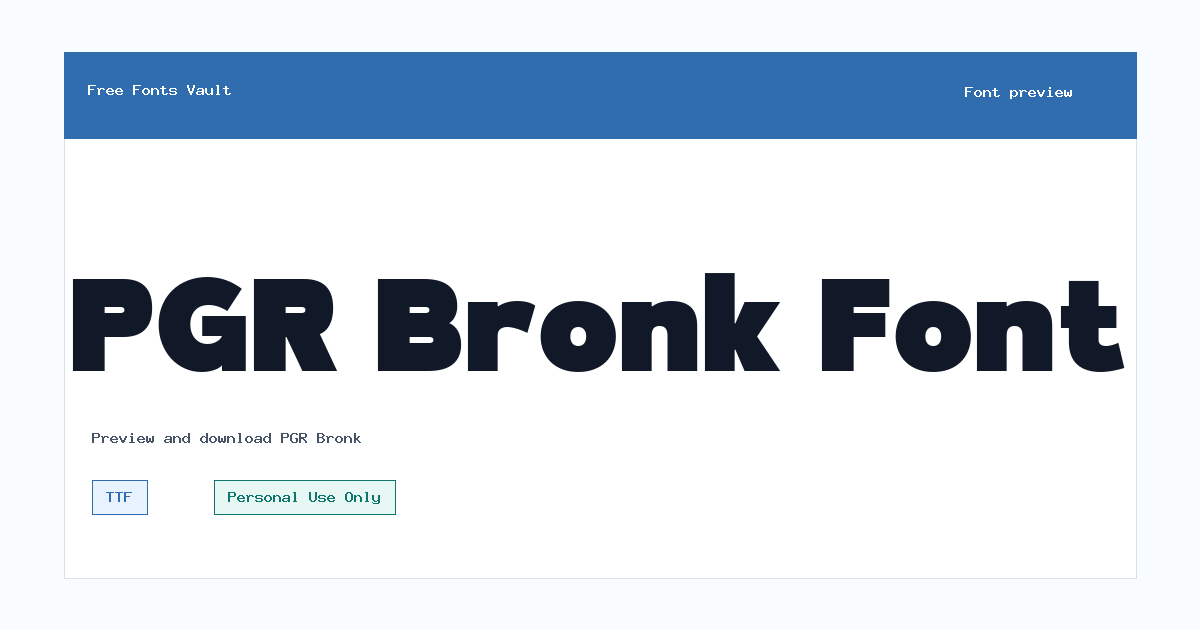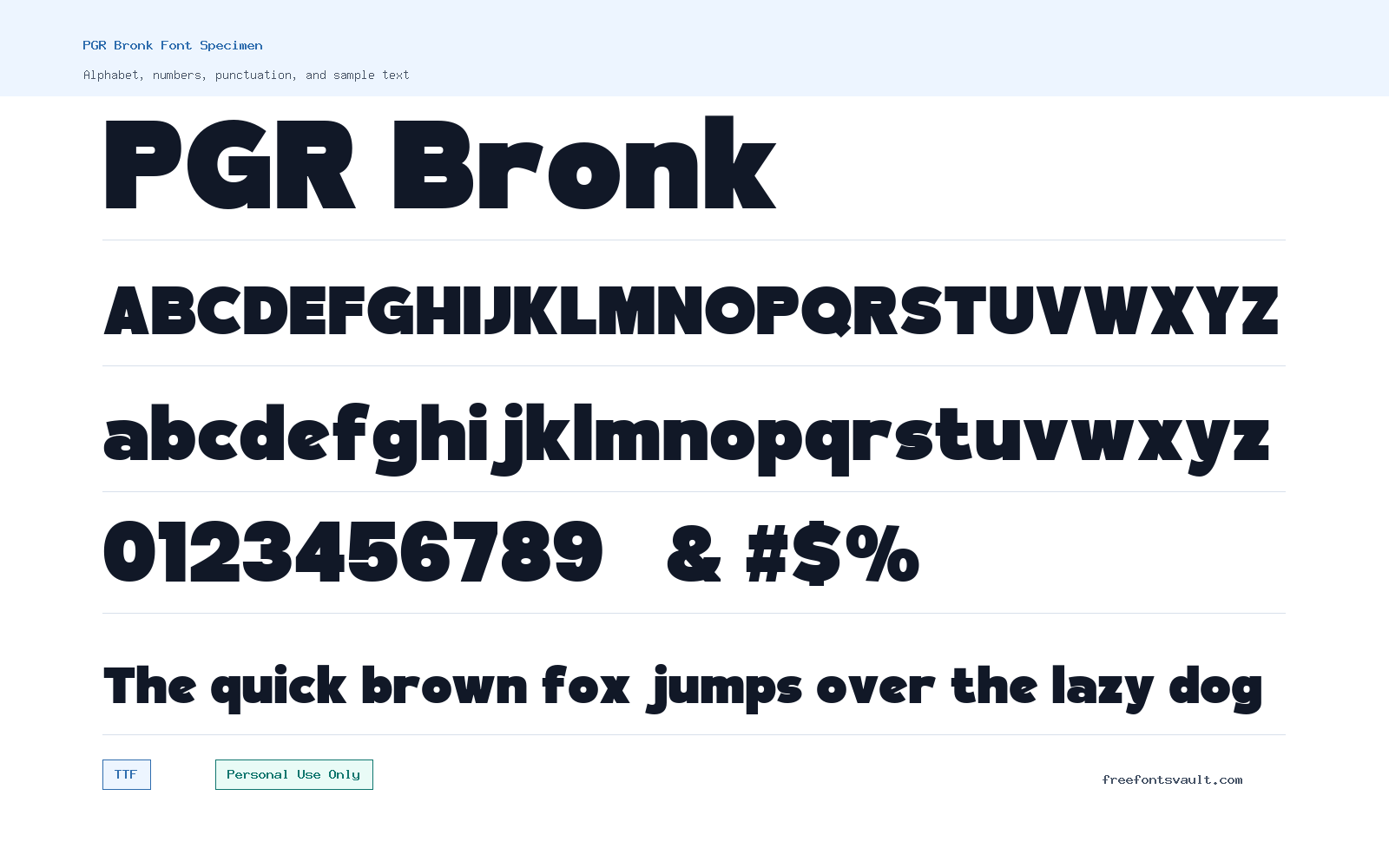
PGR Bronk
PGR Bronk font.
PGR Bronk is a sans serif font from Pikgura with regular-weight files in both TTF and OTF formats. It is best approached as a display-friendly typeface for personal projects where you want clean letterforms and a straightforward preview before download.
About PGR Bronk
PGR Bronk keeps things simple: one regular style, normal upright lettering, and a sans serif structure. That makes it easy to test quickly in the font previewer without sorting through multiple weights or decorative alternates. Because only a regular 400 style is listed, it is most useful when the design needs one clear voice rather than a large typography system.
Use the preview tool with the exact words you plan to design around. Try short titles, names, labels, poster text, thumbnails, social graphics, and simple branding mockups for personal use. Also test lowercase, uppercase, numbers, and punctuation before relying on it in a finished layout. If you need body text, check longer sentences at smaller sizes first; many single-style sans serif fonts work better for headings or short copy than for dense paragraphs.
- Sans serif regular style with normal upright posture
- Single 400-weight variant for simple testing and lightweight use
- Suitable for short text previews, headings, labels, and personal design drafts
- Personal posters, quote graphics, and social media artwork
- Short headings, name treatments, labels, and simple layout experiments
- Testing clean sans serif typography in mockups before choosing a full font family
- Projects where one regular style is enough
What is PGR Bronk best used for?
It is best to test it in short personal-use designs such as headings, posters, labels, social graphics, and simple mockups.
Does PGR Bronk include multiple weights?
Only a regular 400-weight style is listed, so it does not appear to include a full weight range.